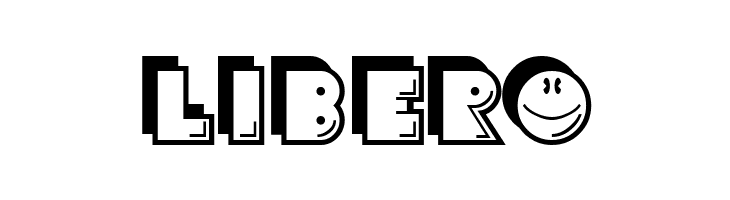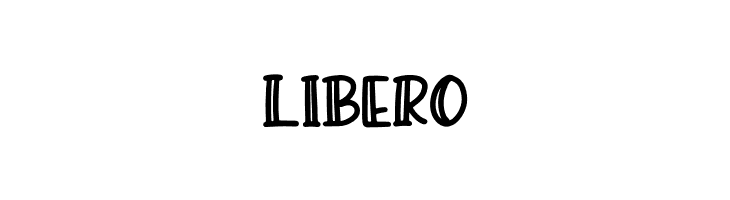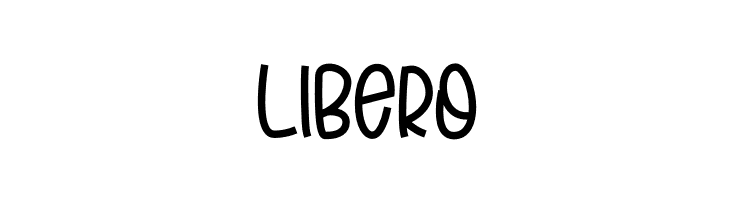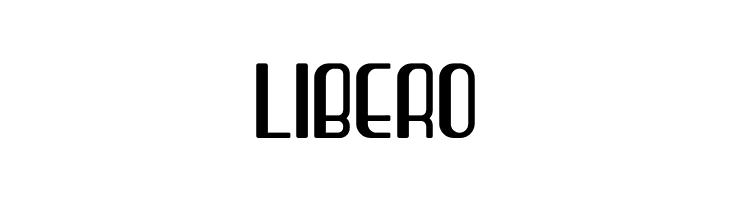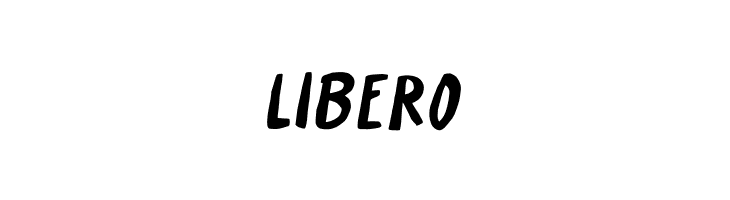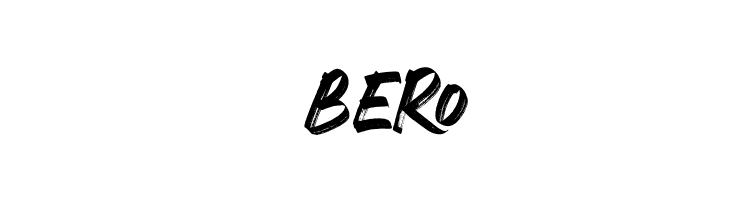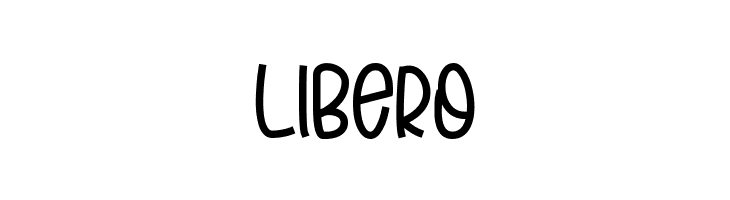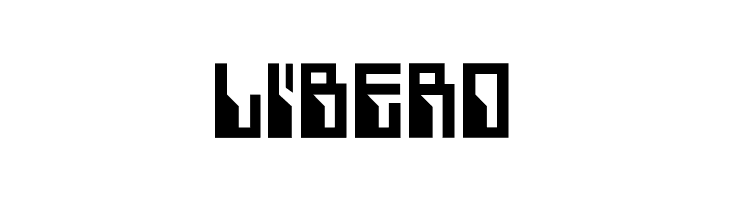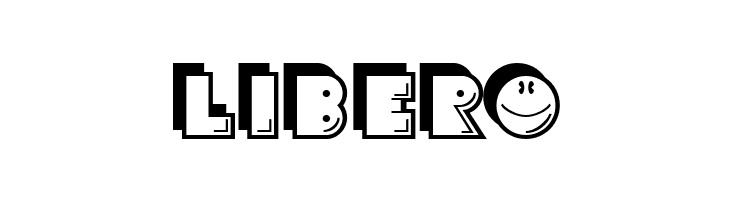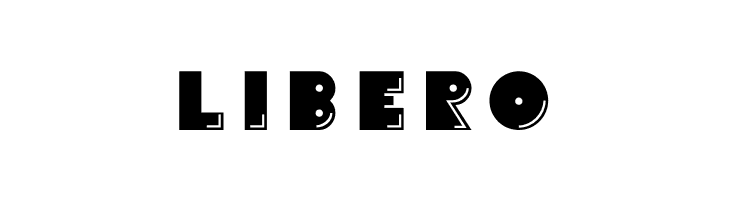
A bold, brush-style font with dynamic, hand-painted strokes.
A bold, dynamic handwritten font with playful, irregular strokes.
A bold, expressive handwritten font with dynamic brush strokes.
A bold, distressed font with a grunge, urban aesthetic.
A classic serif font with high contrast and elegant, angular serifs.
A bold, edgy font with sharp angles and dynamic strokes.
A bold, fiery font with flame-like extensions for dramatic designs.
A bold, geometric font with a playful, retro style and three-dimensional appearance.
A bold, geometric font with a playful, retro arcade-inspired design.
A bold, geometric font with sharp angles and a modern style.
A bold, geometric font with sharp, angular edges and a modern, decorative style.
A bold, playful font with geometric shapes and cut-out elements.
A bold, geometric font with playful cut-out elements and strong visual impact.
A bold, brush-style font with dynamic slant and energetic strokes.
A bold, dynamic script font with a brush-like, hand-drawn appearance.
An abstract, sketch-like font with chaotic line work and a hand-drawn feel.
A bold, fragmented font with a cracked, edgy design.
A bold, angular font with a cracked, fragmented design and italic slant.
A bold, cracked texture font with a rugged, edgy appearance.
A bold, geometric font with sharp angles and a futuristic design.
A playful, handwritten font with smooth, consistent strokes.
A decorative font with a technical, blueprint-like design featuring geometric shapes and detailed line work.
A playful, hand-drawn font with a whimsical and friendly style.
A playful, hand-drawn font with a whimsical and casual style.
A modern, geometric font with rounded edges and a clean, streamlined appearance.
A bold, rounded, and playful font with a handcrafted feel.
A playful, hand-drawn font with bold, rounded characters and a whimsical style.
A bold, distressed slab serif font with a vintage, rugged appearance.